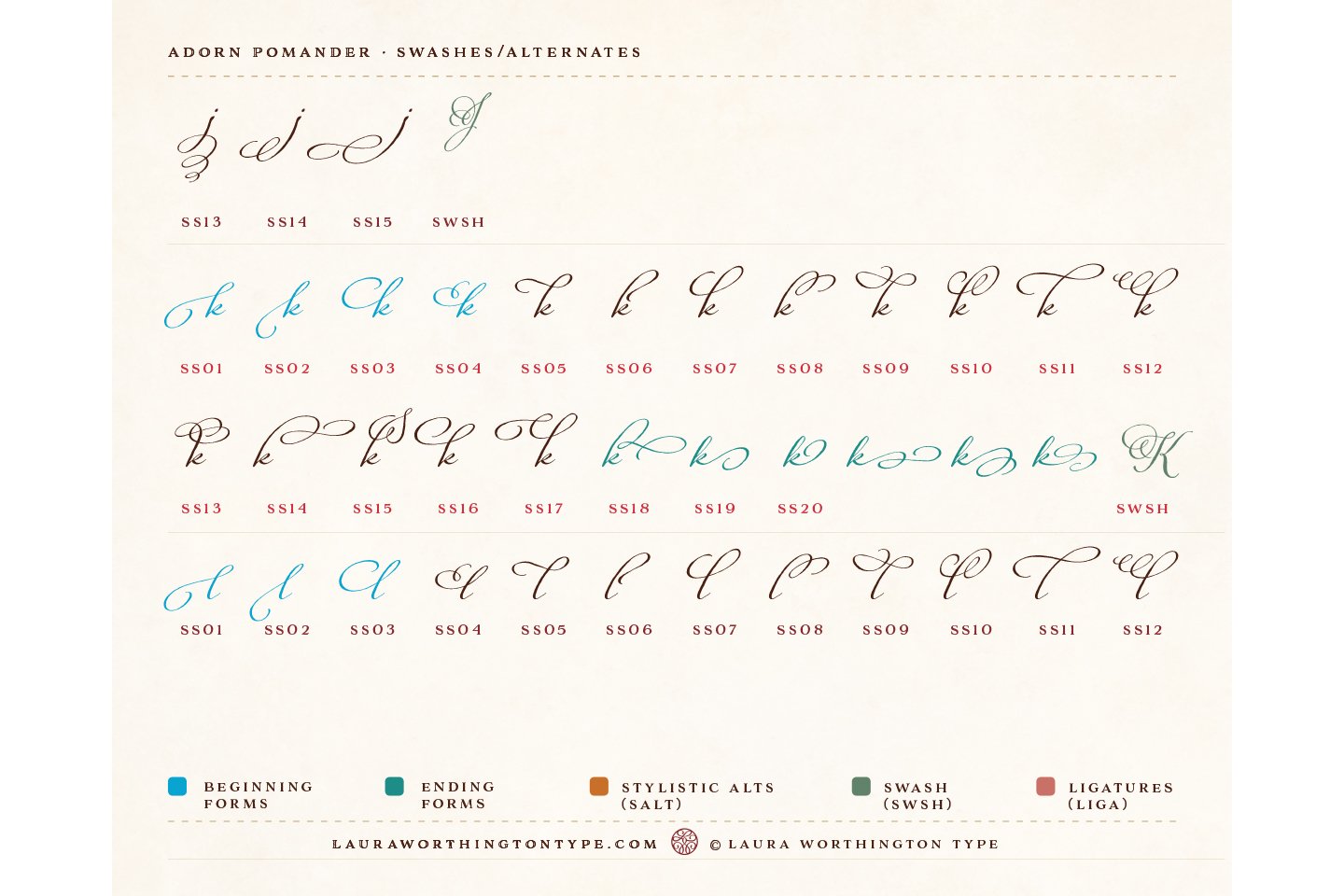
Adorn Pomander Font Free Download . Adorn pomander is one of. Web explore adorn designed by laura worthington at adobe fonts.
A great choice for highlighting your design. Web free download and preview adorn pomander font | adornpomander.ttf, adornpomander.eot, adornpomander.woff,. Web adorn pomander font details : Web adorn pomander is a script and modern calligraphy font published by laura worthington.
Adorn Pomander Font Free Download - Adorn pomander is the perfect font for all your fun designs. Web adorn pomander font free download. Web free download and preview adorn pomander font | adornpomander.ttf, adornpomander.eot, adornpomander.woff,. Web 'find my font' is an easy to use application for identifying fonts in digital images. Web adorn pomander is a script and modern calligraphy font published by laura worthington.
Adorn Pomander Font Free Download - A great choice for highlighting your design. Web adorn pomander font details : Web thousands of designers (famous or not) use the image font detection system to find a font or similar free fonts. Web adorn pomander is a script and modern calligraphy font published by laura worthington. Adorn pomander is one of.
Adorn Pomander Font Free Download - Web adorn pomander is a script and modern calligraphy font published by laura worthington. Adorn pomander is the perfect font for all your fun designs. Web explore adorn designed by laura worthington at adobe fonts. Web adorn pomander font free download. A script typeface with 4 styles, available from adobe fonts for.
Adorn Pomander Font Free Download - Web adorn pomander font free download. Web adorn pomander is a script and modern calligraphy font published by laura worthington. Web free download and preview adorn pomander font | adornpomander.ttf, adornpomander.eot, adornpomander.woff,. A script typeface with 4 styles, available from adobe fonts for. Adorn pomander is the perfect font for all your fun designs.
Adorn Pomander Font Free Download - Adorn pomander is one of. Web free download and preview adorn pomander font | adornpomander.ttf, adornpomander.eot, adornpomander.woff,. Web explore adorn designed by laura worthington at adobe fonts. Web adorn pomander is a script and modern calligraphy font published by laura worthington. A script typeface with 4 styles, available from adobe fonts for.
Adorn Pomander Font Free Download - Adorn pomander is one of. Adorn pomander is the perfect font for all your fun designs. A great choice for highlighting your design. Web 'find my font' is an easy to use application for identifying fonts in digital images. Web adorn pomander font details :
Adorn Pomander Font Free Download - Adorn pomander is the perfect font for all your fun designs. Web adorn pomander is a script and modern calligraphy font published by laura worthington. Web adorn pomander font free download. A great choice for highlighting your design. A script typeface with 4 styles, available from adobe fonts for.
Adorn Pomander Font Free Download - Web adorn pomander font details : Web thousands of designers (famous or not) use the image font detection system to find a font or similar free fonts. Web explore adorn designed by laura worthington at adobe fonts. A great choice for highlighting your design. Adorn pomander is one of.
Adorn Pomander Font Free Download - Web free download and preview adorn pomander font | adornpomander.ttf, adornpomander.eot, adornpomander.woff,. Web 'find my font' is an easy to use application for identifying fonts in digital images. Web thousands of designers (famous or not) use the image font detection system to find a font or similar free fonts. Web adorn pomander font free download. A great choice for highlighting.
Adorn Pomander Font Free Download - A script typeface with 4 styles, available from adobe fonts for. Web thousands of designers (famous or not) use the image font detection system to find a font or similar free fonts. Web explore adorn designed by laura worthington at adobe fonts. Adorn pomander is one of. Web adorn pomander font details :
Adorn Pomander Font Free Download - Web explore adorn designed by laura worthington at adobe fonts. Adorn pomander is the perfect font for all your fun designs. A great choice for highlighting your design. Web adorn pomander font free download. Web 'find my font' is an easy to use application for identifying fonts in digital images.